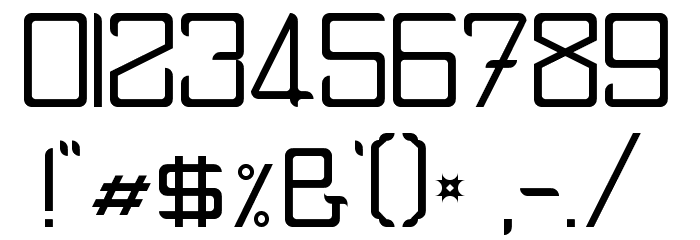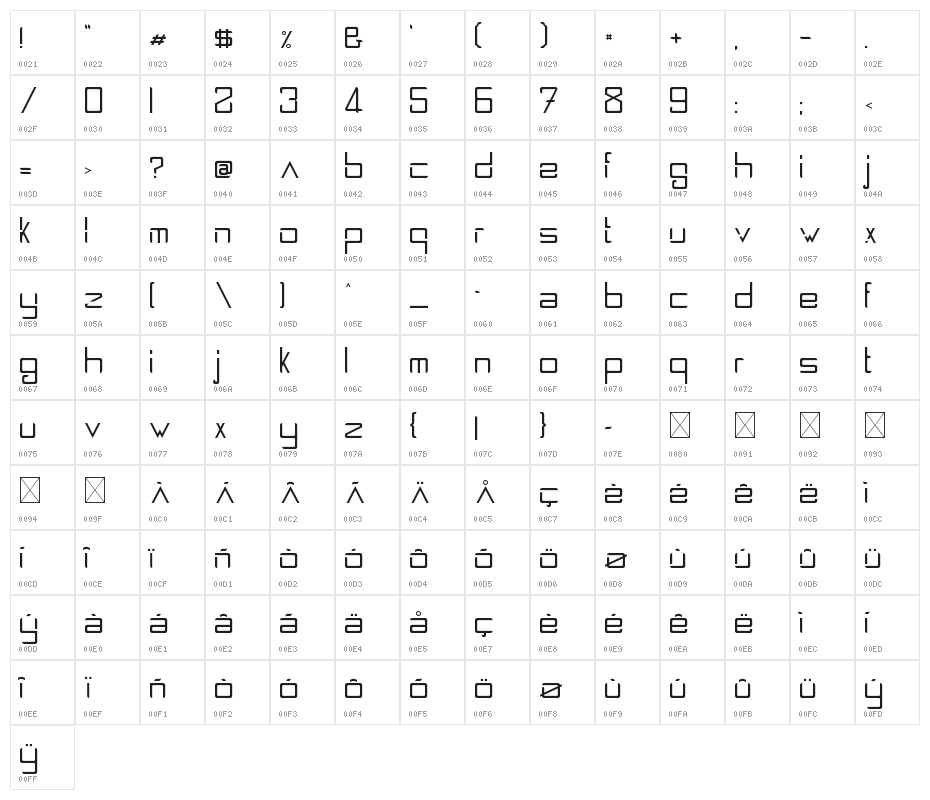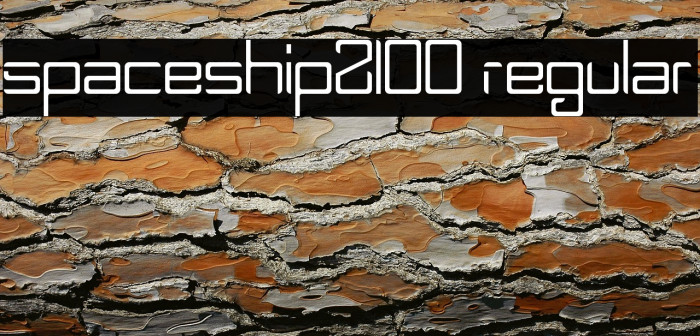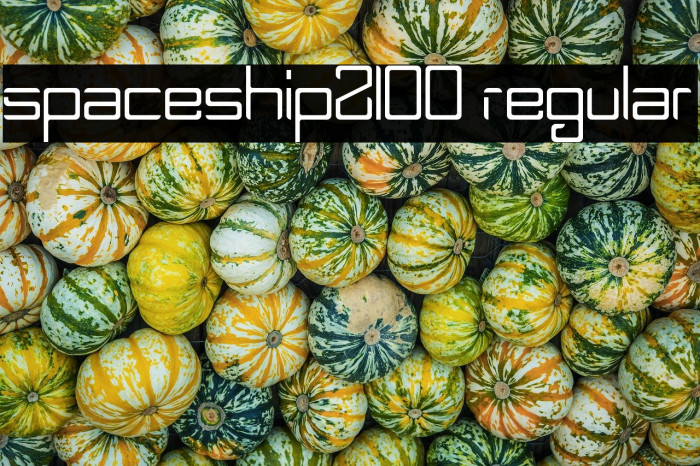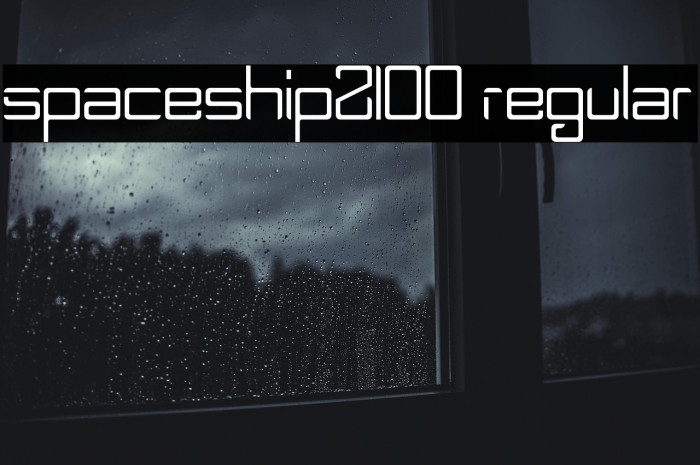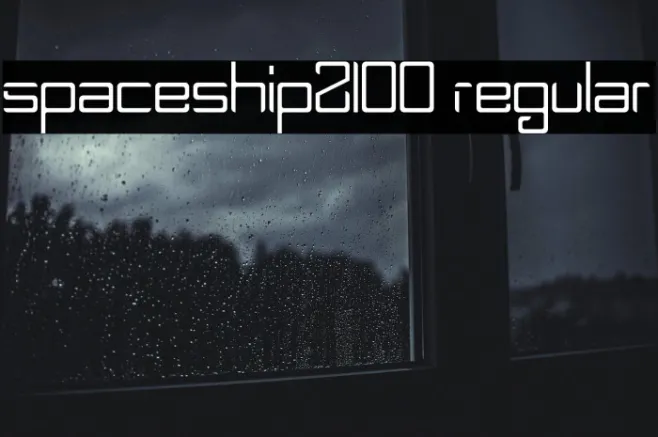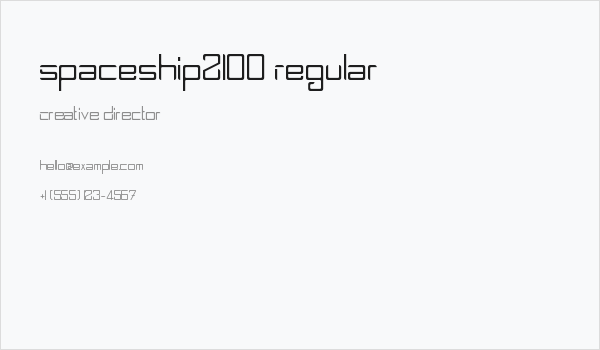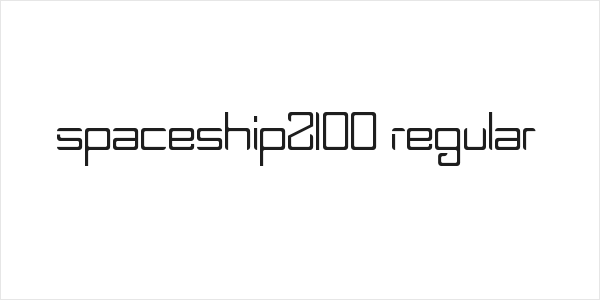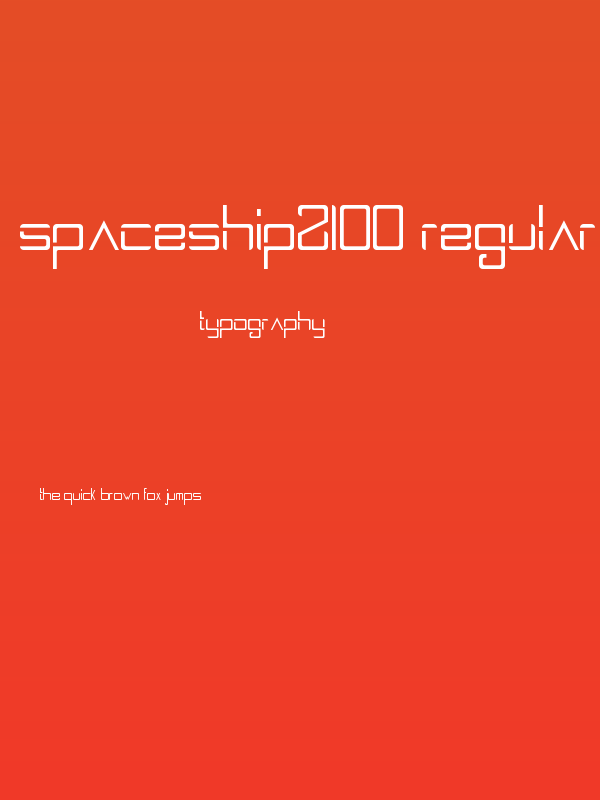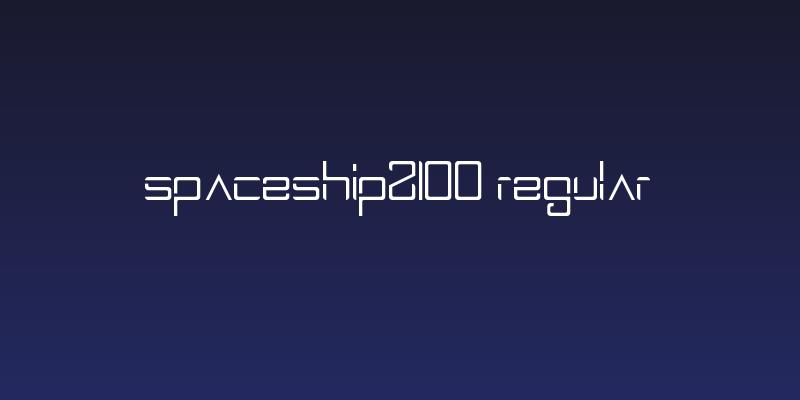
Spaceship2100 Regular Font
Spaceship2100 Regular Description
This futuristic font features a sleek, geometric design with a modern aesthetic. The characters are composed of clean lines and rounded edges, giving it a high-tech appearance. The uppercase and lowercase letters maintain a consistent style, with a uniform height and width that enhances readability. The numerals and special characters are designed to match the overall theme, providing a cohesive look. This font is ideal for projects that require a contemporary and innovative feel, such as technology branding, sci-fi themes, and digital interfaces.
| Proposed Projects | Ideal for technology branding, sci-fi themes, digital interfaces, and modern advertising. |